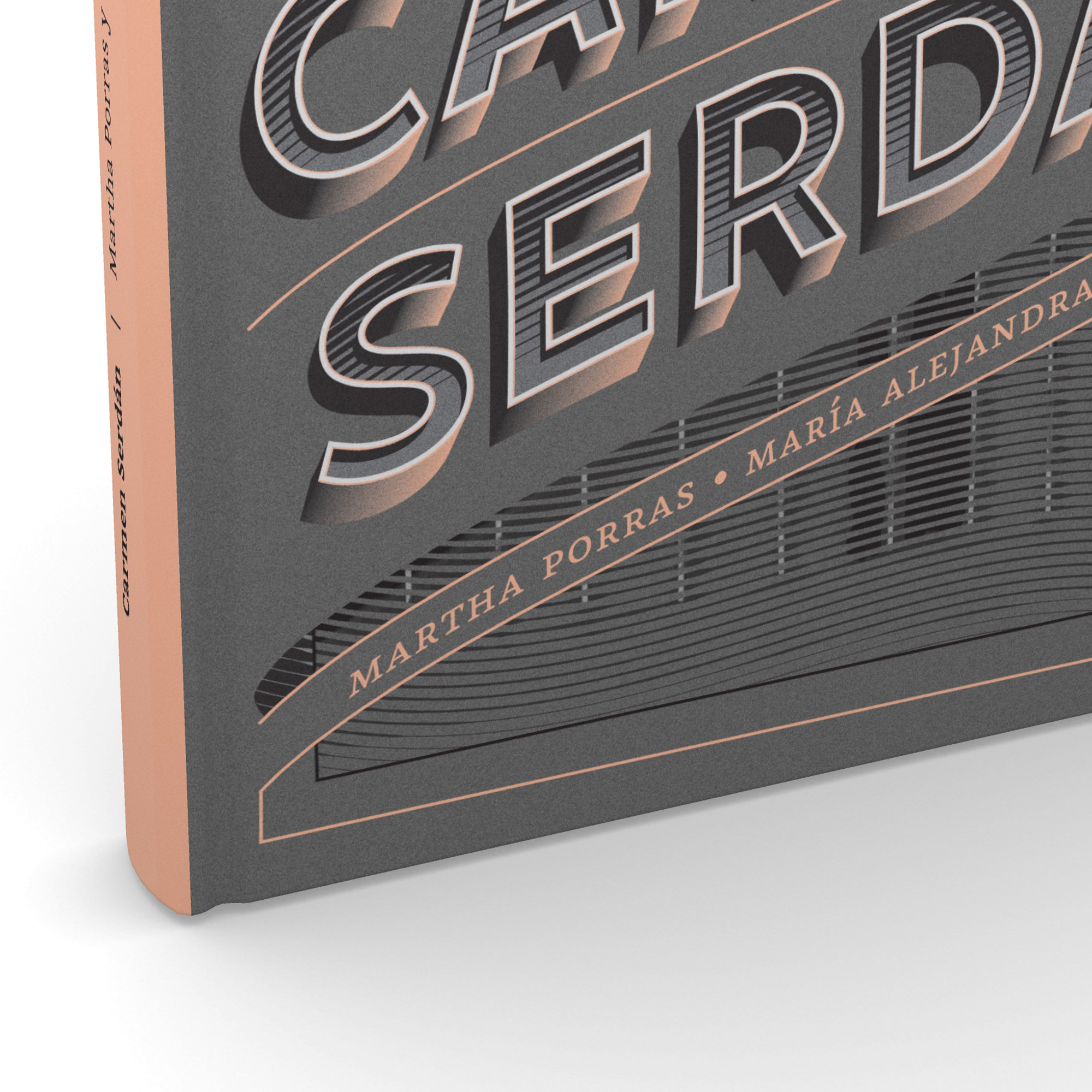
Espinela
Espinela is a hybrid typeface that subtly blends characteristics of transitional serifs with contemporary refinement. Its moderate contrast, well-proportioned serifs, and carefully crafted curves ensure both elegance and readability. The italics feature a subtle calligraphic influence, while the bold styles maintain strength without excess weight. OpenType features such as ligatures, small caps, and stylistic alternates enhance versatility.
Ideal for editorial design, book publishing, and formal documents, Espinela excels in settings that demand both sophistication and clarity. Whether in long-form text, magazine layouts, or refined branding, it offers a professional yet inviting presence, making it a reliable choice for high-quality typography.
Isaías Loaiza, Sergio Trujillo, Guido Ferreyra
Weight
Bold, Bold italic, Display, Italic, Regular
Contrast
High [Display]
Width
Normal
Counter
Large
Stroke Ending
Serif
X-Height
High
Font Ideal Sizes
≥ 24 [Display]
≥ 8 [Text]
Pixel Density
High [Display]
Medium [Text]
Legibility
High
Reading Speed
High, Medium
Visual Acuity
Excellent, Good, Medium
Intended for
Editorial Design, Magazines, Books, Newspapers